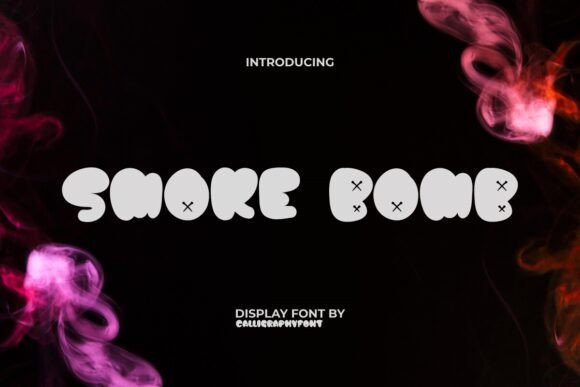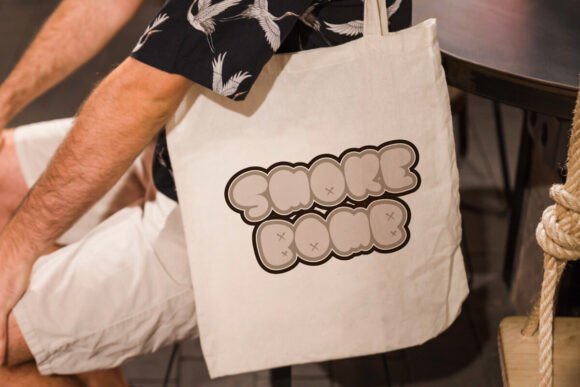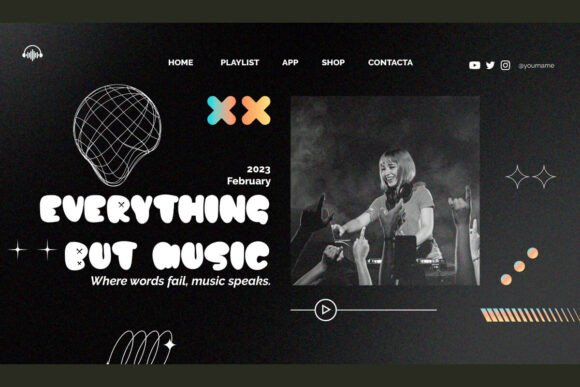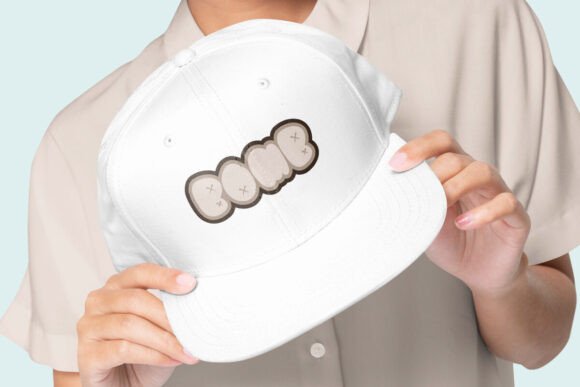
Smoke Bomb Font: A Trendy Display Font for Playful Pinterest Designs!
About the Smoke Bomb Font
Explore the possibilities with Smoke Bomb Font, a font that offers both beauty and functionality. Smoke Bomb is a trendy cute yet scary bubble display font with a classic look.It is a combination of the essence of bubble dynamics with a modern and slightly funky style. Express creatively and be there to support your visual design, such as billboard, blogs, brand logo, brochure, cards, cover, flyer, header, packaging design, pamphlet, poster, product label, quotes, screen print, signage board, stationery, sticker, title, website, and more.
Smoke Bomb Font Usage Examples
Smoke Bomb Font Example